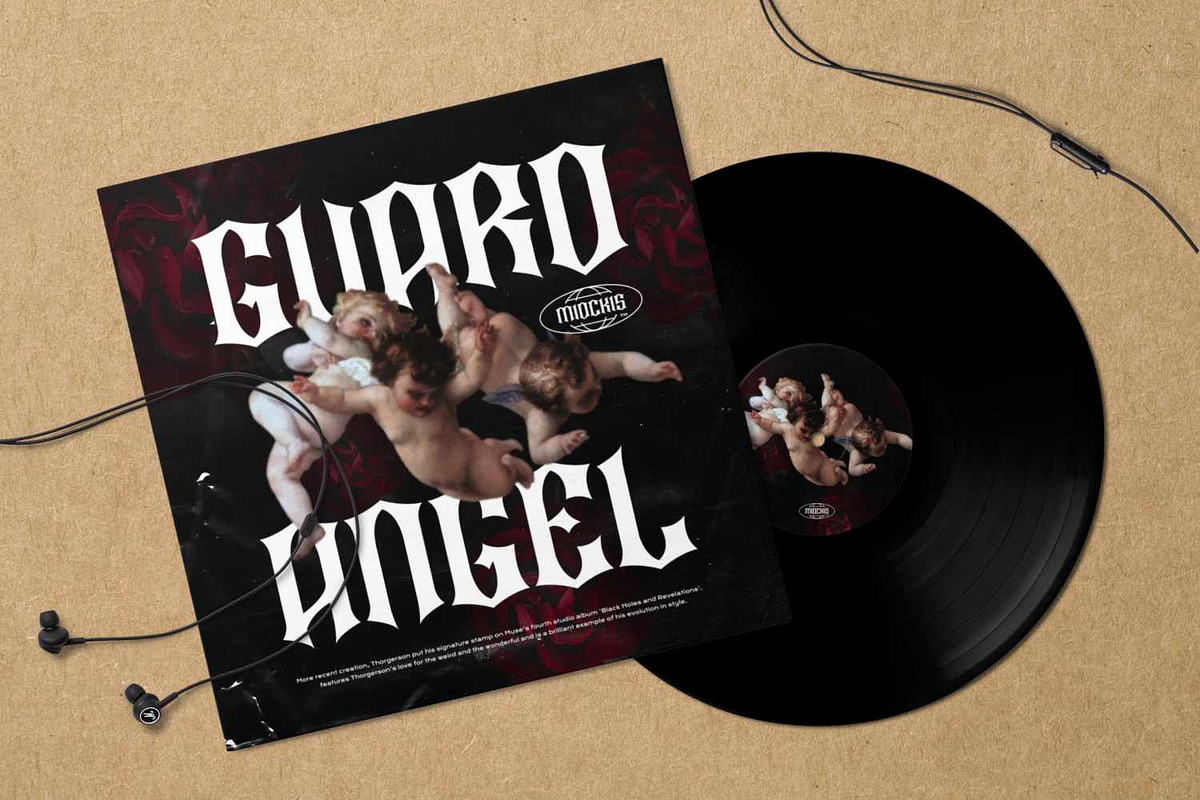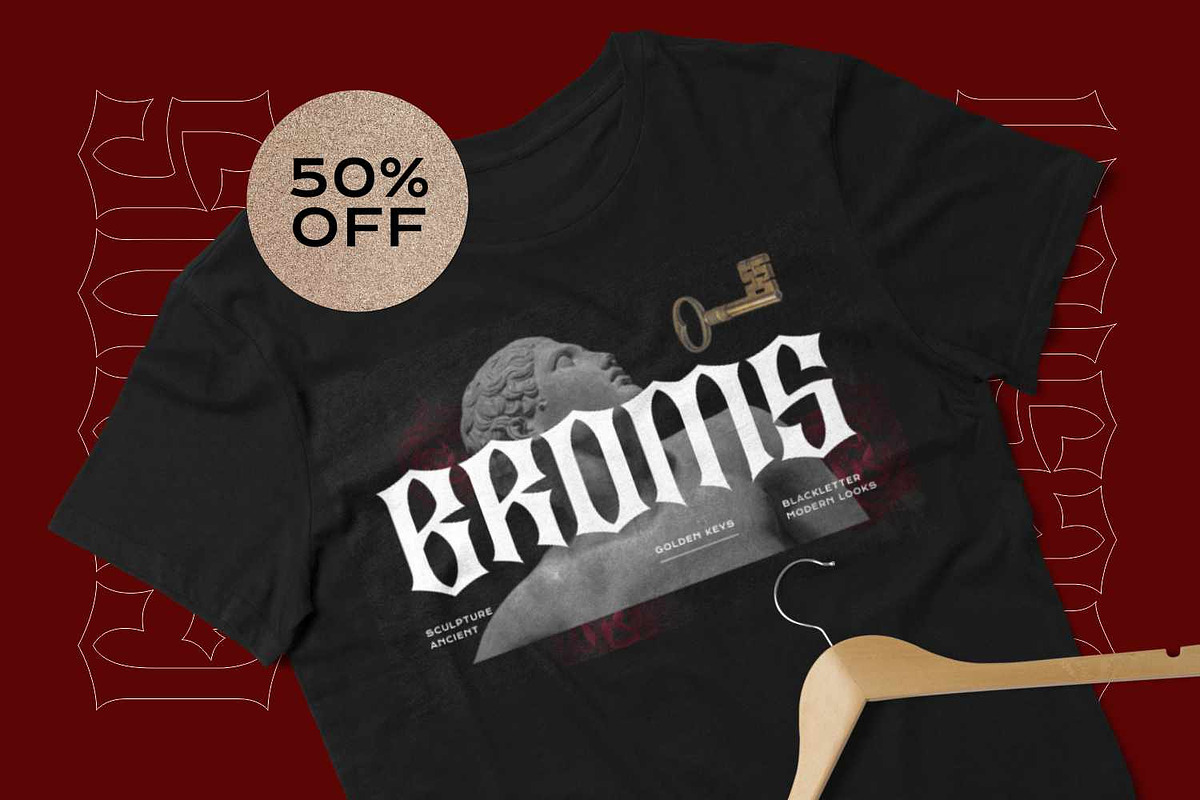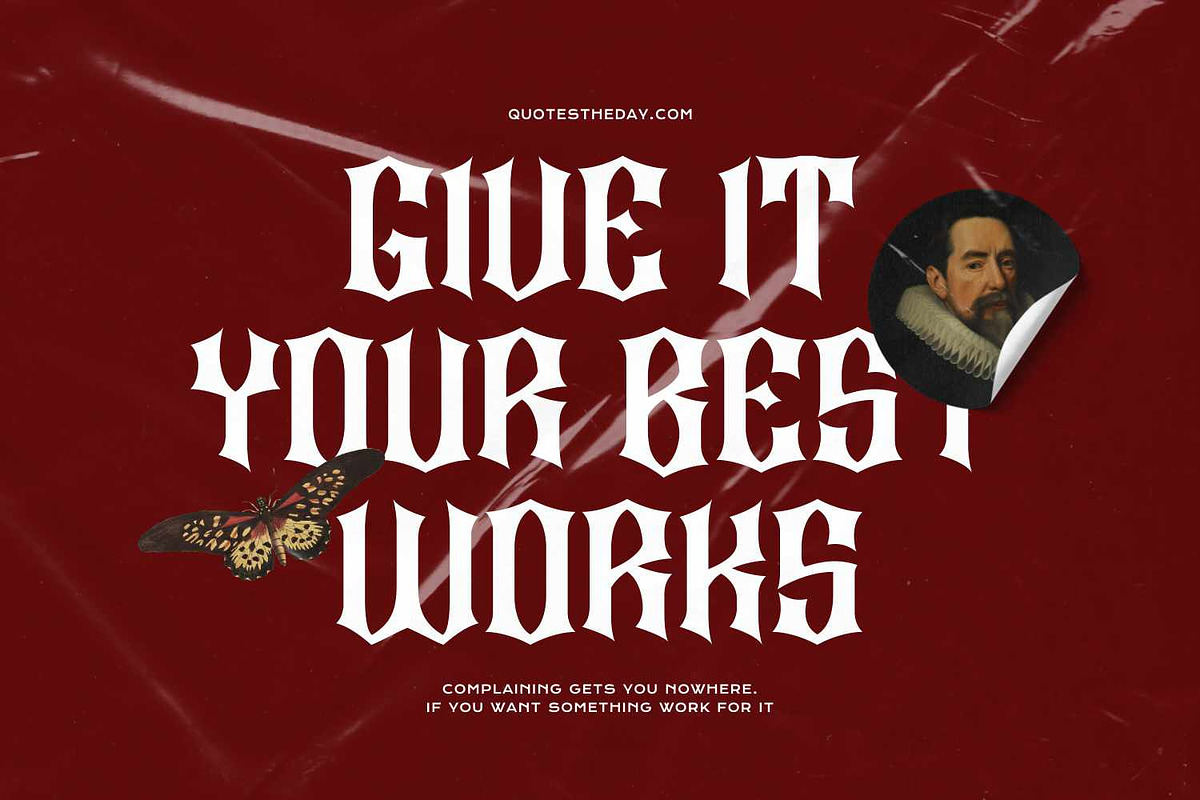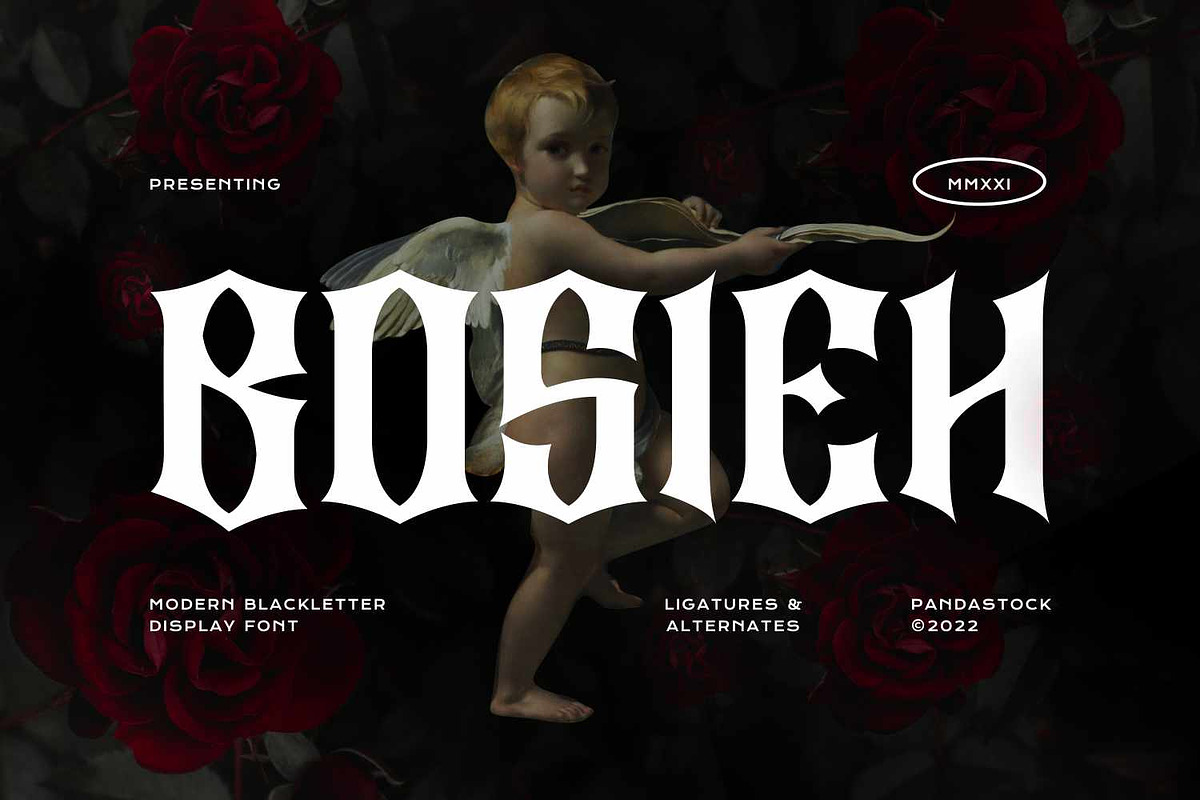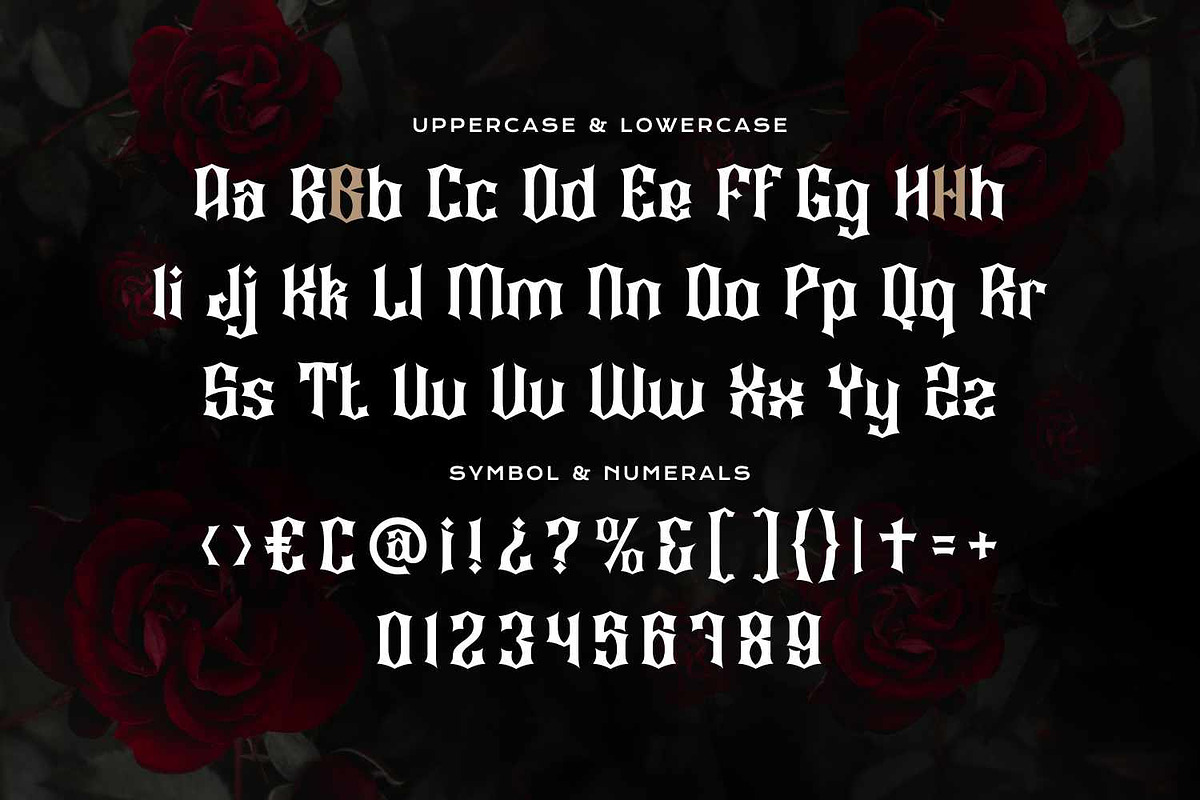
Bosieh - Modern Blackletter
Bosieh is a modern blackletter display font that blends medieval Gothic style with classic heritage, embodying the hallmark of 21st century aesthetics by merging historical gravitas with a contemporary touch. Featuring sharp, angular letterforms, dramatic thick to thin transitions, and striking serifs, its architectural structure exudes a bold and rebellious character while still maintaining an air of sophisticated tradition.
Bosieh is poised to deliver stunning typographic flair across packaging, posters, editorial layouts, streetwear branding, album artwork, rock music, pomade packaging, and any project crafted with a dark, powerful concept.